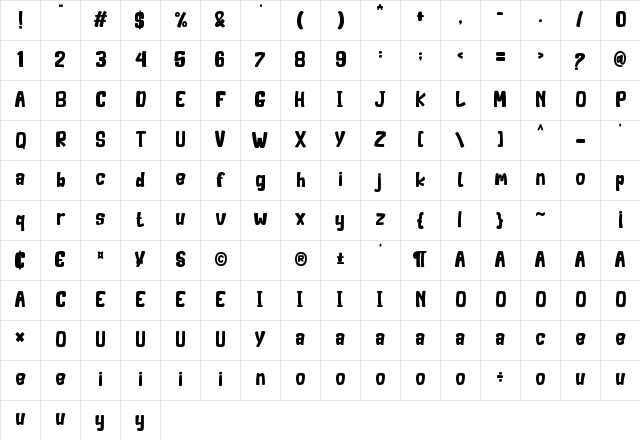
Summer Beach Regular
Foundry: Nirmala Creative
Designer: Risma Ramawi
Design Context for Summer Beach
Summer Beach is a composed and adaptable typeface that performs quietly and consistently across a wide range of design contexts.